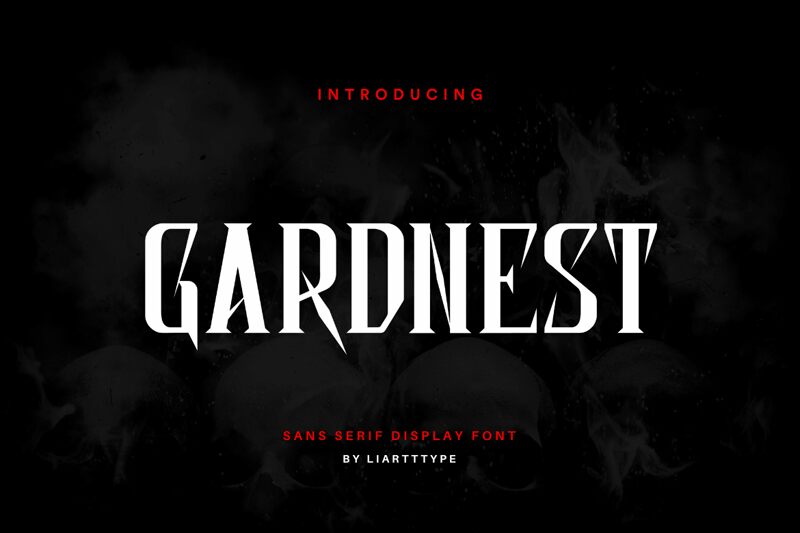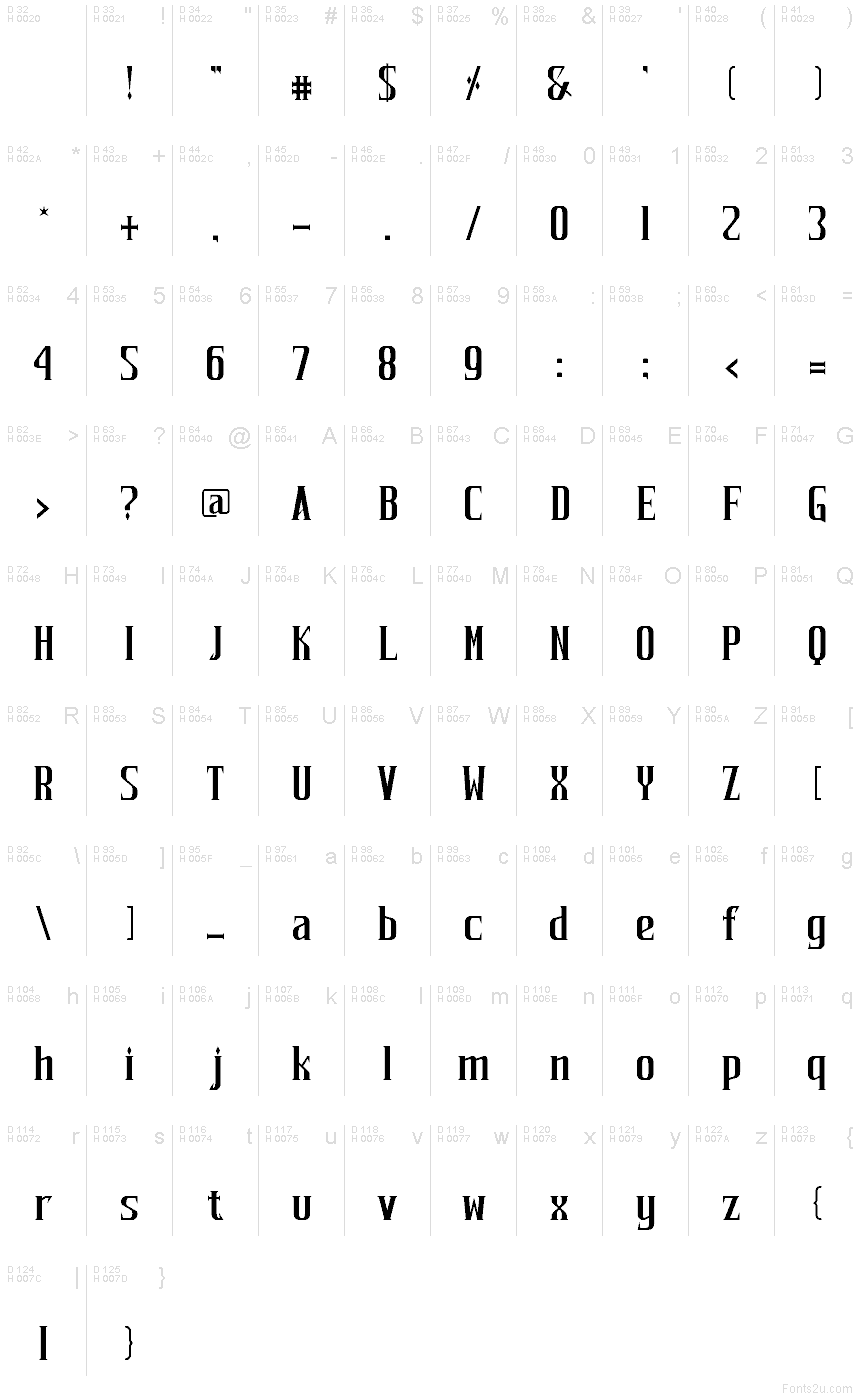
GARDNEST
Gardnest font by Liart Type is a free modern gothic typeface. Tall, condensed letters march in tight formation, their chiseled edges and blade-like notches giving each word a dark shimmer. It blends blackletter drama with a clean, contemporary snap, so headlines feel imposing without getting messy.
Using Gardnest, you get commanding impact in tight spaces; its narrow build stacks neatly while the sharp cuts keep words crisp at a glance. This free font shines on posters, album art, esports branding, fashion labels, book covers, and nightlife flyers. Open the tracking a touch for smaller titles, and pair it with a plain grotesque sans to keep body copy calm while Gardnest handles the mood.